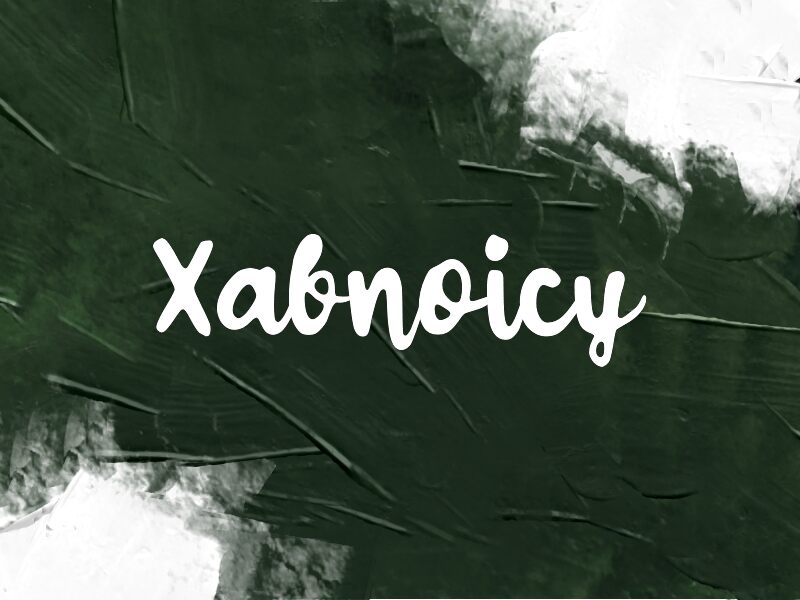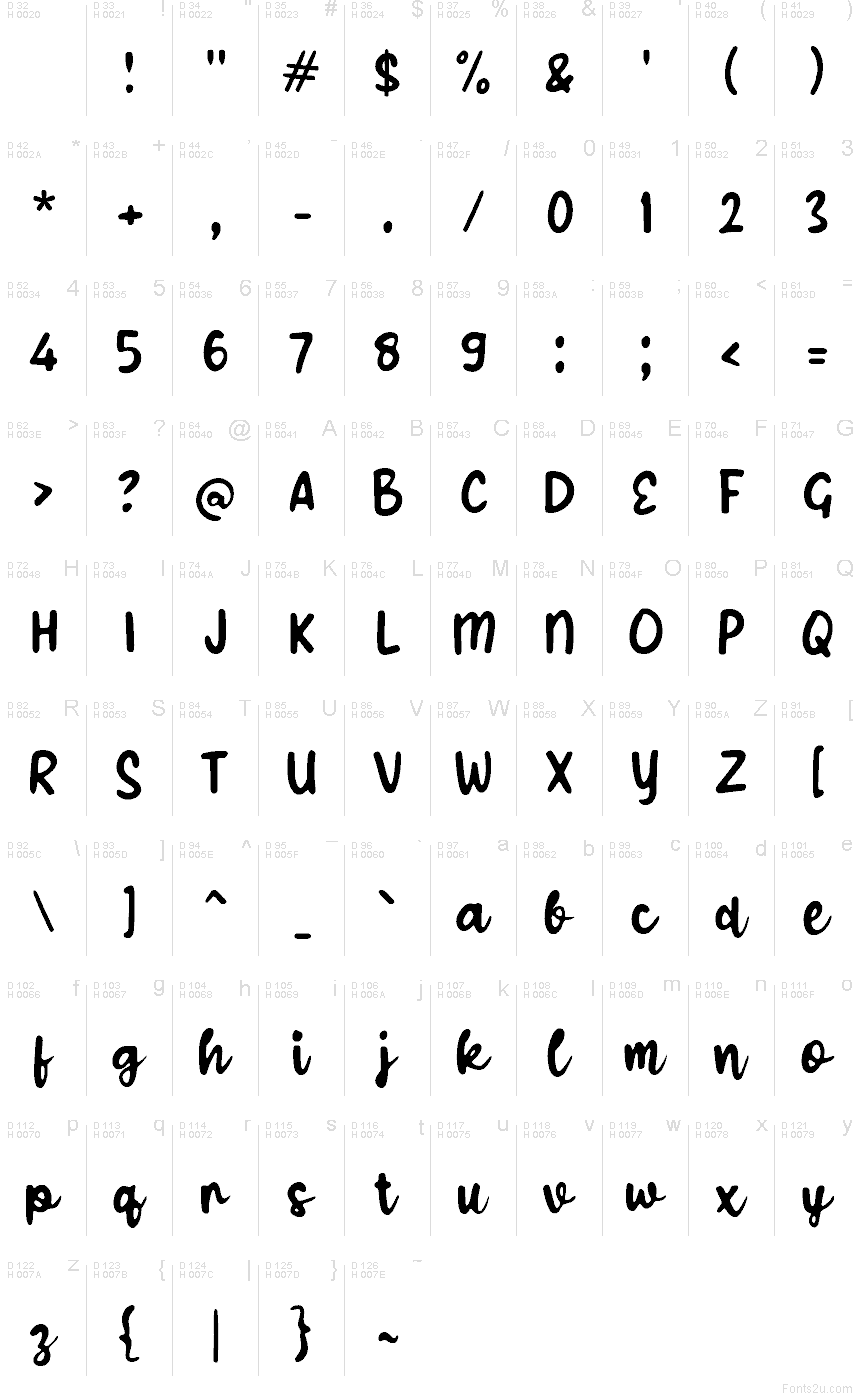
Xabnoicy
Xabnoicy font by wepfont.com is a free handwritten font that captures the feel of bold brush lettering done with a juicy marker. The strokes are thick, inky, and slightly bouncy, giving every word a friendly, confident presence that still feels casual and human. Rounded curves and smooth joins keep it approachable, so it reads like a warm note rather than formal script.
Using Xabnoicy, you can bring personality to social media graphics, playful logos, product packaging, quote posters, stickers, and event invites. This free font shines when it’s used large, letting those chunky strokes show their texture and energy. Pair it with a clean, light sans serif for body text to balance its weight and keep layouts looking fresh and modern.